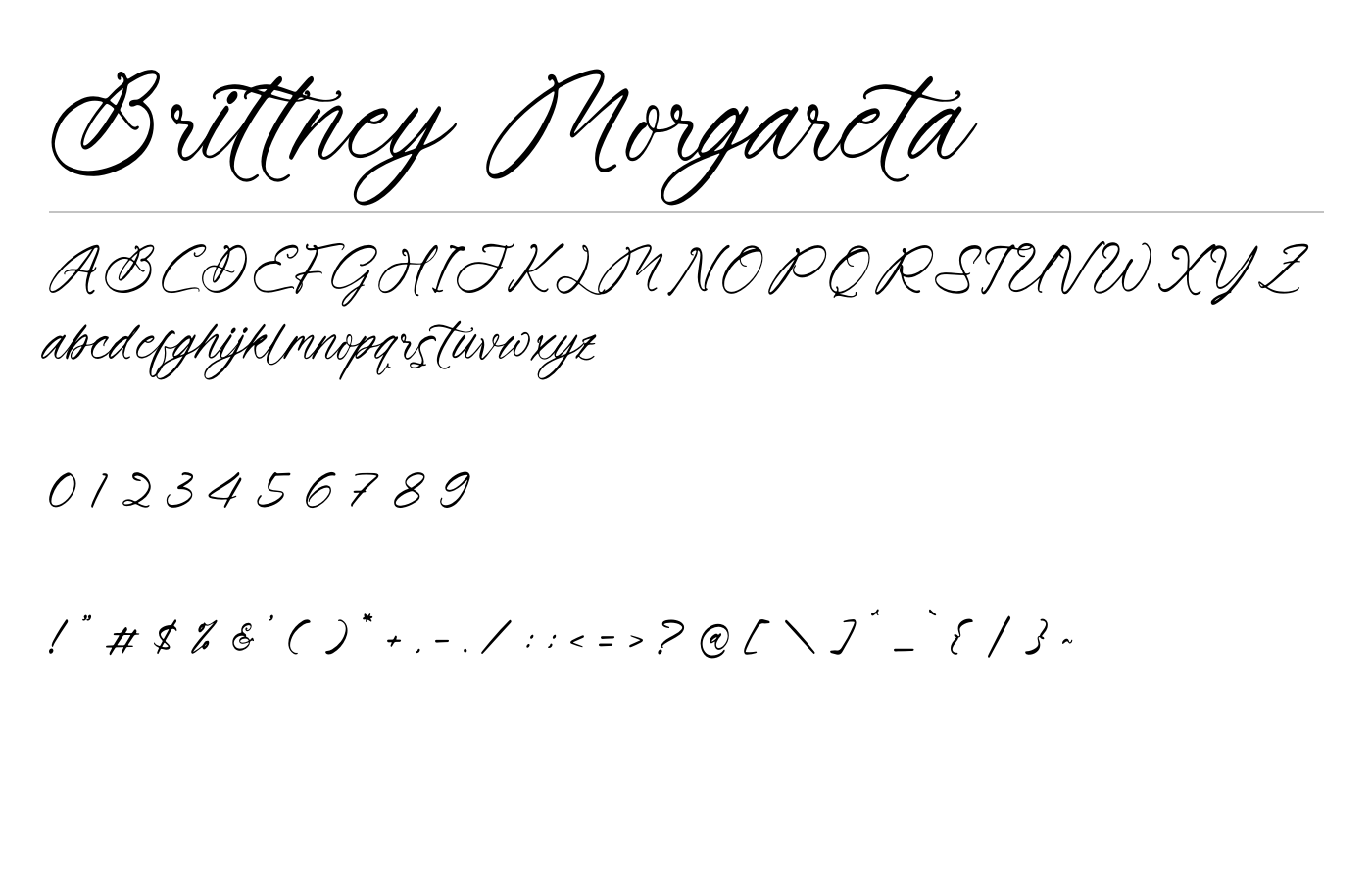
Brittney Morgareta is an elegant script font featuring delicate, flowing strokes that mimic graceful handwriting. With its light weight, high contrast, and refined letterforms, it exudes a sophisticated and personal touch, making it ideal for invitations, branding, and upscale design projects that seek a romantic or feminine flair. This font works especially well in headlines and decorative uses where a stylish, handcrafted feel is desired.
Brittney Morgareta Font
About Brittney Morgareta Font